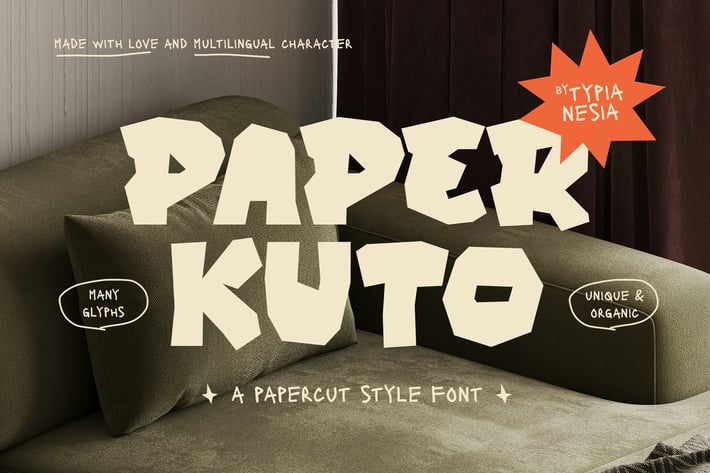
Paper Kuto - Papercut / Paper Cutout Style Font
Paper Kuto - Papercut / Paper Cutout Style Font - Playful & Unique Handcraft Display Font
Paper Kuto is a Papercut / Paper Cutout Style Font that brings the charm of handcrafted paper art to your designs. Its unique cut-out aesthetic and playful irregularity make it stand out, delivering a natural and artistic feel that mimics real paper crafting, Ideal for DIY projects, children's books, creative posters, greeting cards, scrapbooking, branding, packaging, game design, advertising campaigns, invitations, social media graphics, and any project that requires a unique and artistic touch. Comes with uppercase and lowercase letters, punctuation, numerals, ligatures, and alternates to give you a dynamic and handcrafted look. With multilingual support, Paper Kuto ensures a seamless experience for designers working on diverse creative projects worldwide. Designed for designers, illustrators, content creators, and creative brands looking to add a playful and artistic vibe to their work. Paper Kuto is an excellent choice for those looking to infuse a handmade and playful vibe into their projects. It's perfect for bringing a sense of fun, nostalgia, and creativity to any design.